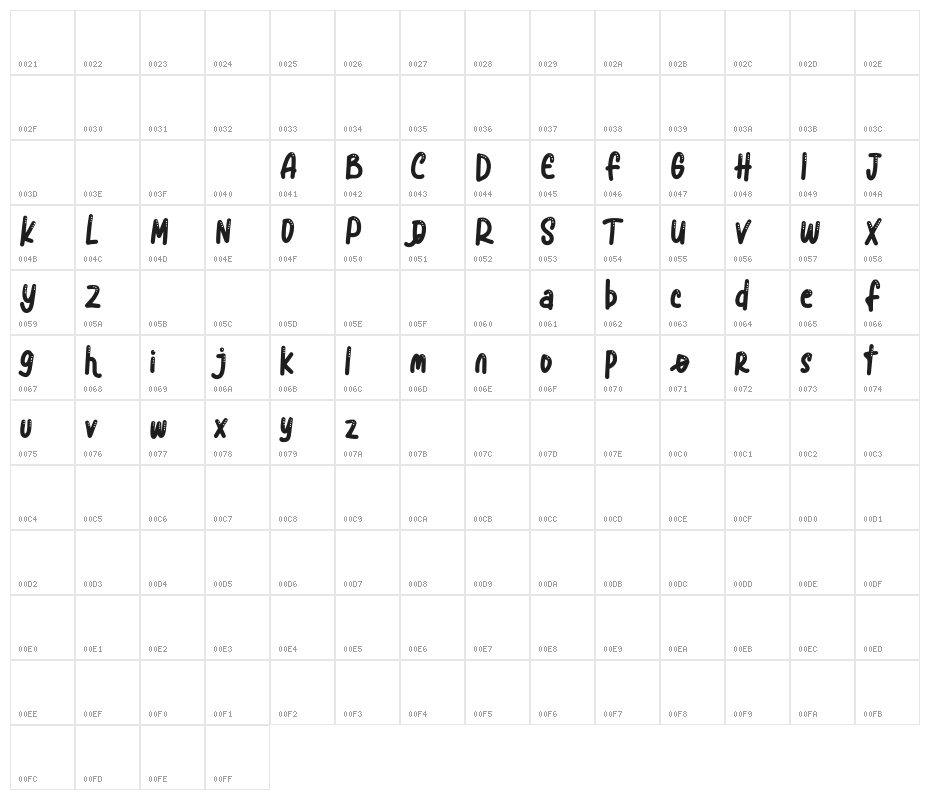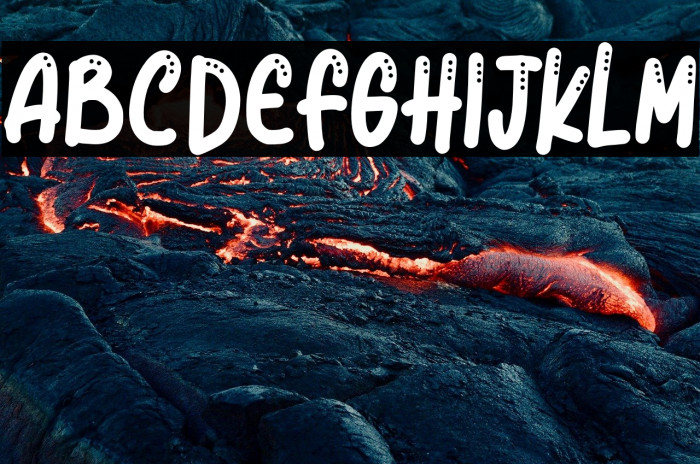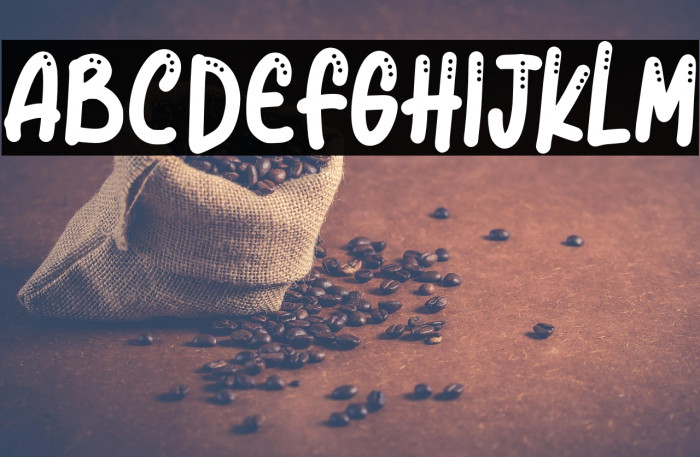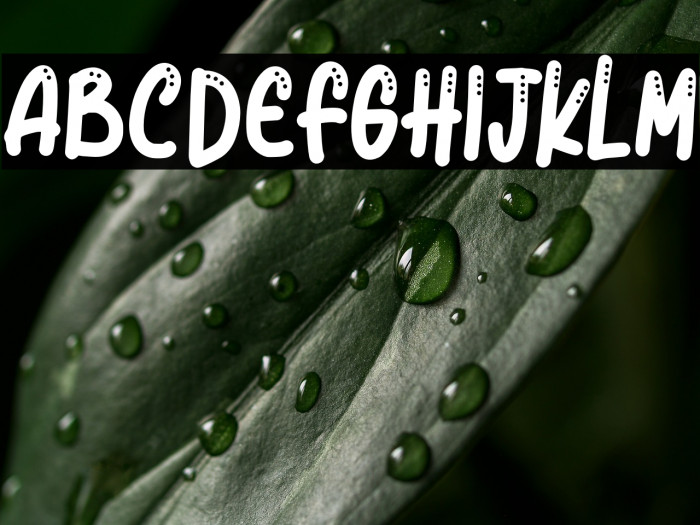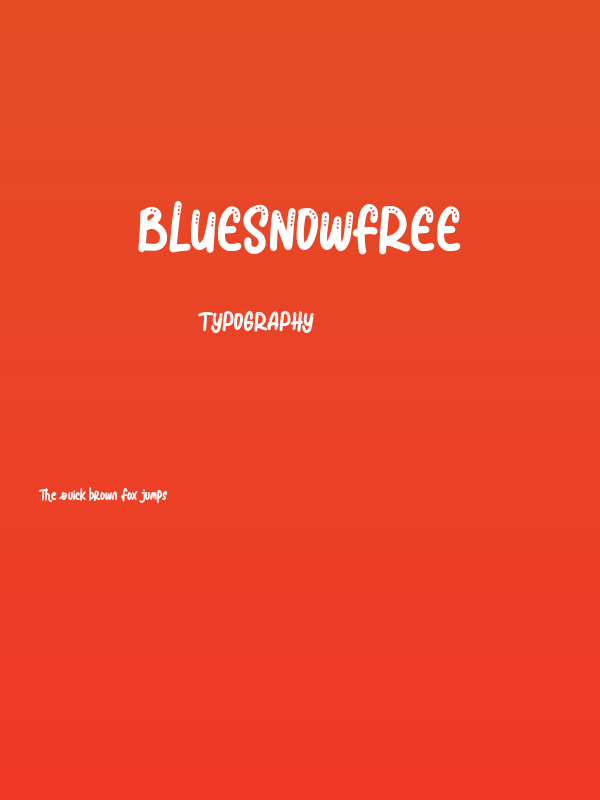
BlueSnowFREE Font
BlueSnowFREE Description
This playful and whimsical font features bold, rounded characters with a unique dotted pattern on the uppercase letters. The lowercase letters maintain a consistent style, offering a friendly and approachable look. The font's design is reminiscent of hand-drawn lettering, adding a personal touch to any project. Its bold strokes and decorative elements make it stand out, ideal for creative and fun applications. The font's style is both modern and quirky, making it suitable for a variety of uses where a lighthearted and engaging appearance is desired.
| Overall Style | Playful, Whimsical |
| Proposed Projects | Ideal for children's books, playful branding, party invitations, and creative posters. |